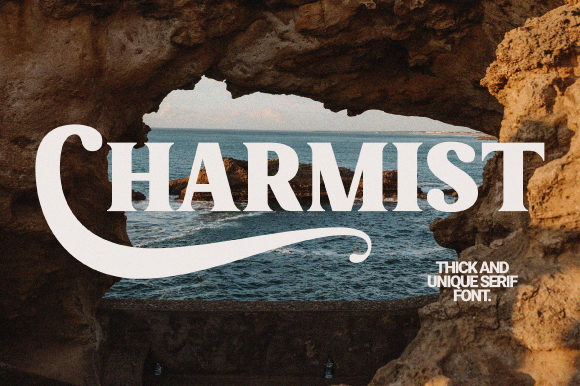
Introducing Charmist Font: Elevate Your Designs with a Modern Serif Twist
In the world of typography, fonts play a pivotal role in shaping the visual identity of a brand, product, or creative project. Among the myriad of fonts available, the Charmist Font stands out for its distinctive blend of modernity and uniqueness. This serif font is not just another addition to the typography family; it’s a game-changer, especially for designers and crafters looking to infuse their work with a touch of elegance and sophistication.
What Makes Charmist Font Unique?
Charmist Font breaks the conventional mold with its modern and unique style, characterized by a bold approach to capital letters. Unlike traditional serif fonts, Charmist features capital letters that are bolder but retain the same shape as their lowercase counterparts, creating a harmonious and balanced look. This distinctive feature makes it an excellent choice for designs that require emphasis and clarity, such as logos, branding materials, and creative posts.
Exploring Alternative Characters and Glyphs
One of the most intriguing aspects of Charmist Font is its alternative characters, which offer a playground for creativity. Designers can experiment with different glyphs and ligatures to create unique and personalized designs. This versatility is a boon for professionals who aim to deliver bespoke solutions to their clients or to stand out in a crowded market. The font’s PUA (Private Use Area) encoding ensures that accessing these glyphs and ligatures is straightforward, allowing for a seamless creative process.
Perfect for Branding, Logos, and Creative Posts
Charmist Font’s impressive features make it an ideal choice for various design applications. For branding and logos, its bold yet refined appearance can help create a lasting impression. The font’s readability and aesthetic appeal also make it suitable for creative posts and social media content, enabling designers to maintain consistency across different platforms.
Advantages of Using Charmist Font
- Modern and Unique Style: Offers a fresh take on traditional serif fonts, making it perfect for projects that demand a contemporary look.
- Bold Capital Letters: Provides a clear visual hierarchy, enhancing readability and impact.
- PUA Encoded: Allows easy access to a wide range of glyphs and ligatures, facilitating creative experimentation.
- Versatility: Suitable for a variety of design applications, from branding and logos to creative posts and digital content.
Charmist Font is more than just a typography addition; it’s a creative tool that can elevate your designs to new heights. Its unique blend of modernity, boldness, and versatility makes it an indispensable asset for designers and crafters. Whether you’re working on a branding project, designing a logo, or creating engaging content for social media, Charmist Font offers the perfect combination of style and functionality. Get it now, and start playing with the endless possibilities it offers!